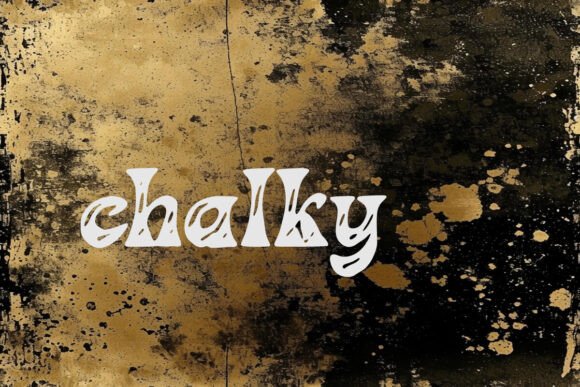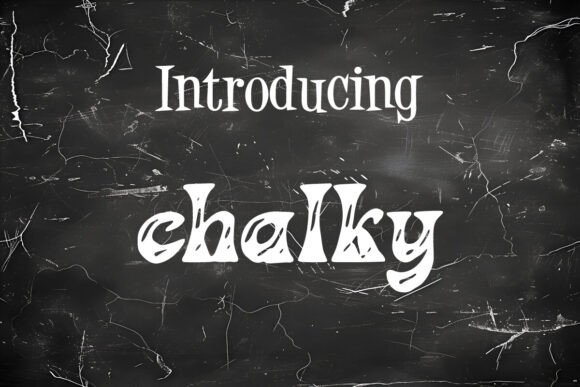
Introducing Chalky Display Font – The Perfect Blend of Playfulness and Professionalism
In the world of design, fonts play a crucial role in defining a brand’s identity. A well-crafted font can elevate your brand’s visual appeal, convey its personality, and leave a lasting impression on your audience. If you’re a designer, craftsperson, or entrepreneur looking for a font that combines playfulness with professionalism, look no further than Chalky Display Font. This creatively designed font is the perfect accessory for defining your brand and making it stand out from the crowd.
The Unique Flair of Chalky Display Font
Chalky Display Font boasts a unique flair that sets it apart from other fonts. Its chalk-like texture and smooth lines give it a friendly, approachable feel that’s perfect for brands that want to appear approachable and relatable. At the same time, its sleek and modern design ensures that it looks professional and sophisticated, making it suitable for a wide range of applications, from advertising materials to logo design.
Elevate Your Brand with Chalky Display Font
With Chalky Display Font, you can breathe life into your words and make an indelible impression on your audience. This versatile font can be used to elevate various aspects of your brand, including:
- Advertising Materials: Use Chalky Display Font to create eye-catching ads that grab attention and leave a lasting impression.
- Blog Content: Add a touch of personality to your blog posts and make them more engaging with Chalky Display Font.
- Logo Design: Create a unique and memorable logo that reflects your brand’s personality with Chalky Display Font.
- Brand Imaging: Use Chalky Display Font to create visually appealing social media graphics, posters, and other visual elements that showcase your brand’s personality.
Why Choose Chalky Display Font?
So, why should you choose Chalky Display Font for your design needs? Here are just a few reasons:
- Unique Design: Chalky Display Font boasts a unique design that’s sure to make your brand stand out.
- Versatility: This font is versatile and can be used for a wide range of applications, from advertising materials to logo design.
- Playful yet Professional: Chalky Display Font strikes the perfect balance between playfulness and professionalism, making it suitable for brands that want to appear approachable and sophisticated.
- Easy to Read: This font is easy to read, even at small sizes, making it perfect for body text and headlines.
Tips for Using Chalky Display Font
Here are a few tips for using Chalky Display Font effectively:
- Use it as a Headline Font: Chalky Display Font is perfect for headlines and titles, so use it to grab attention and draw the reader’s eye.
- Pair it with a Serif Font: Pair Chalky Display Font with a serif font for body text to create a visually appealing contrast.
- Experiment with Colors: Chalky Display Font looks great in a range of colors, so don’t be afraid to experiment and find the perfect hue for your brand.
In conclusion, Chalky Display Font is a versatile and creatively designed font that’s perfect for designers, craftspersons, and entrepreneurs looking to elevate their brand’s visual appeal. With its unique flair, playful yet professional design, and ease of use, this font is sure to make an indelible impression on your audience. So why wait? Harness the power of Chalky Display Font today and breathe life into your words!
Whether you’re looking to create stunning advertising materials, engaging blog content, or a memorable logo, Chalky Display Font is the perfect choice. Its chalk-like texture and smooth lines give it a friendly, approachable feel that’s perfect for brands that want to appear approachable and relatable. At the same time, its sleek and modern design ensures that it looks professional and sophisticated, making it suitable for a wide range of applications.